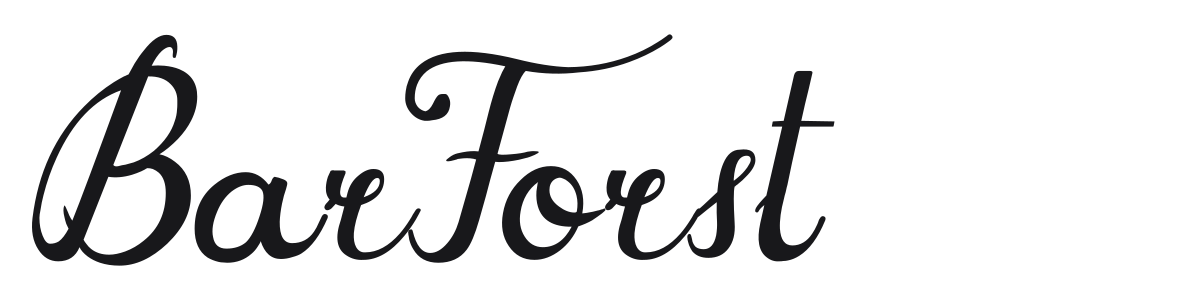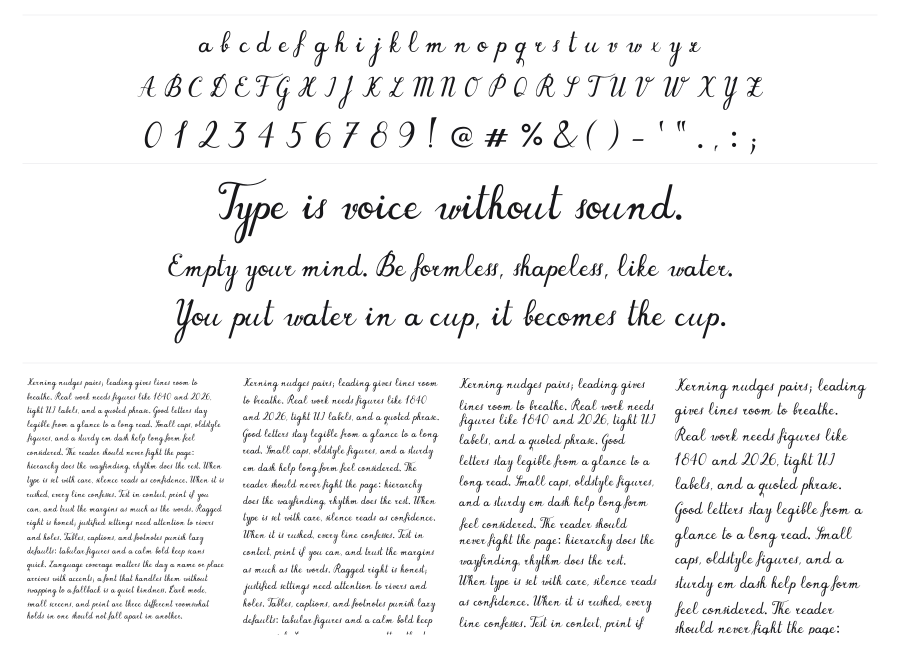
BarForst
BarForst is a flowing formal script with copperplate-influenced stroke contrast and generous looping ascenders. The connected letters move with a confident rhythm that feels both classical and warm. It suits wedding stationery, premium packaging, and any brand identity that leans into handcrafted elegance.